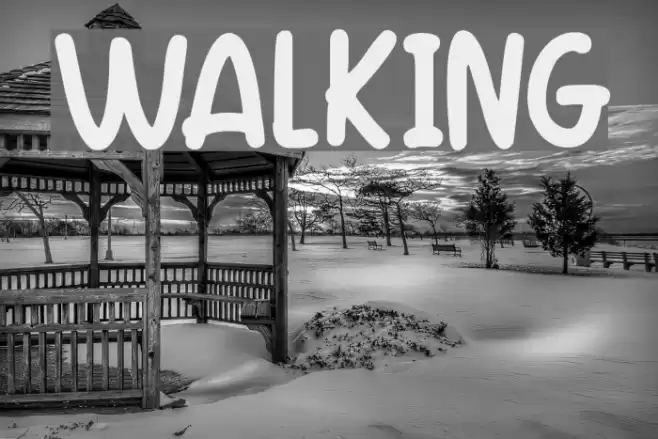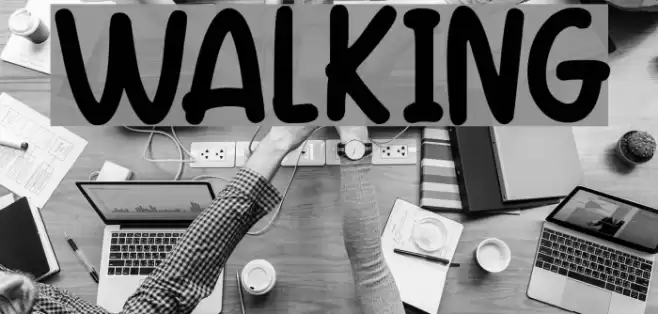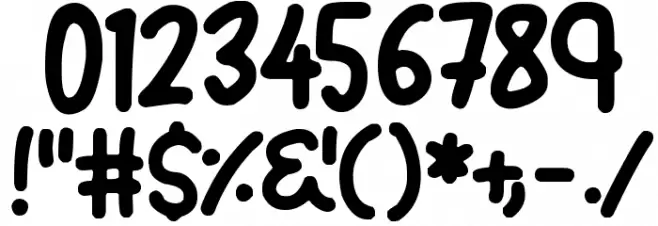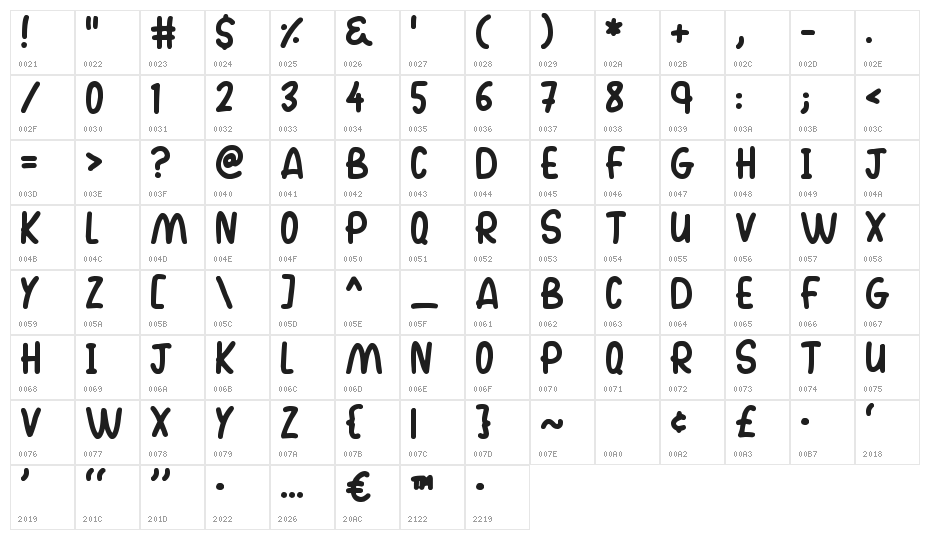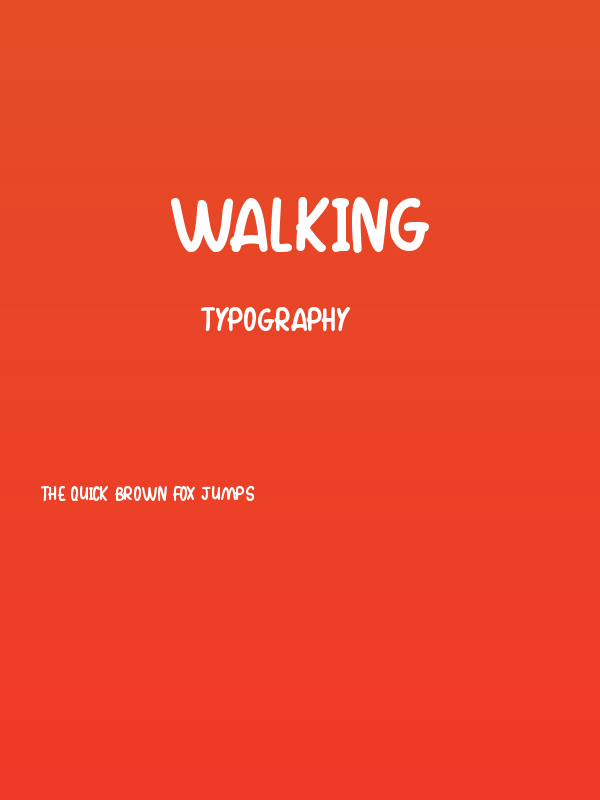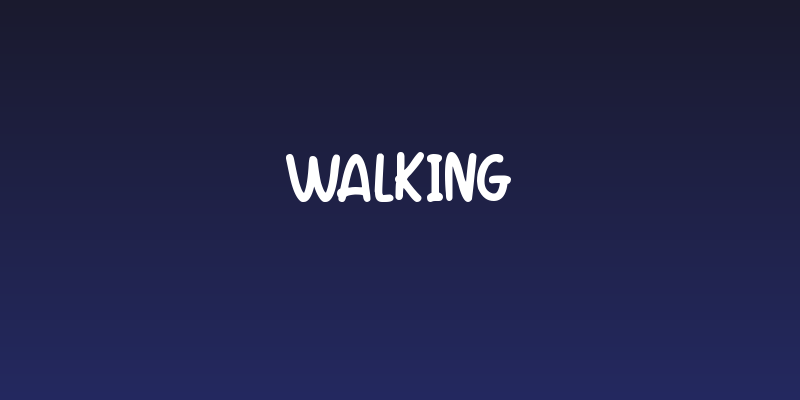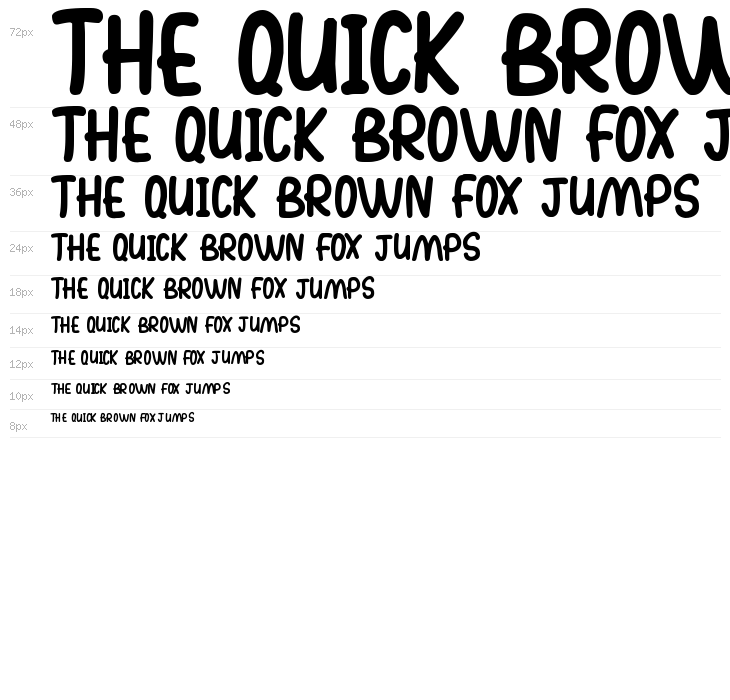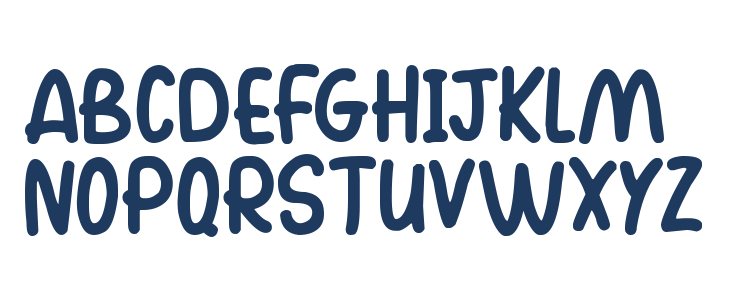
Walking Font
Walking Description
This playful and bold font features rounded edges and a hand-drawn aesthetic, giving it a friendly and approachable feel. The characters are consistently thick, providing a uniform appearance across both uppercase and lowercase letters. The numbers and special characters maintain this style, ensuring cohesion throughout. Its whimsical nature makes it ideal for projects that require a touch of fun and creativity. The font's design is reminiscent of casual handwriting, yet it maintains clarity and readability, making it suitable for various informal applications.
A playful, bold font with rounded, hand-drawn characters from Uncategorized fonts.
- Proposed Projects: Ideal for children's books, playful branding, casual invitations, and creative posters.